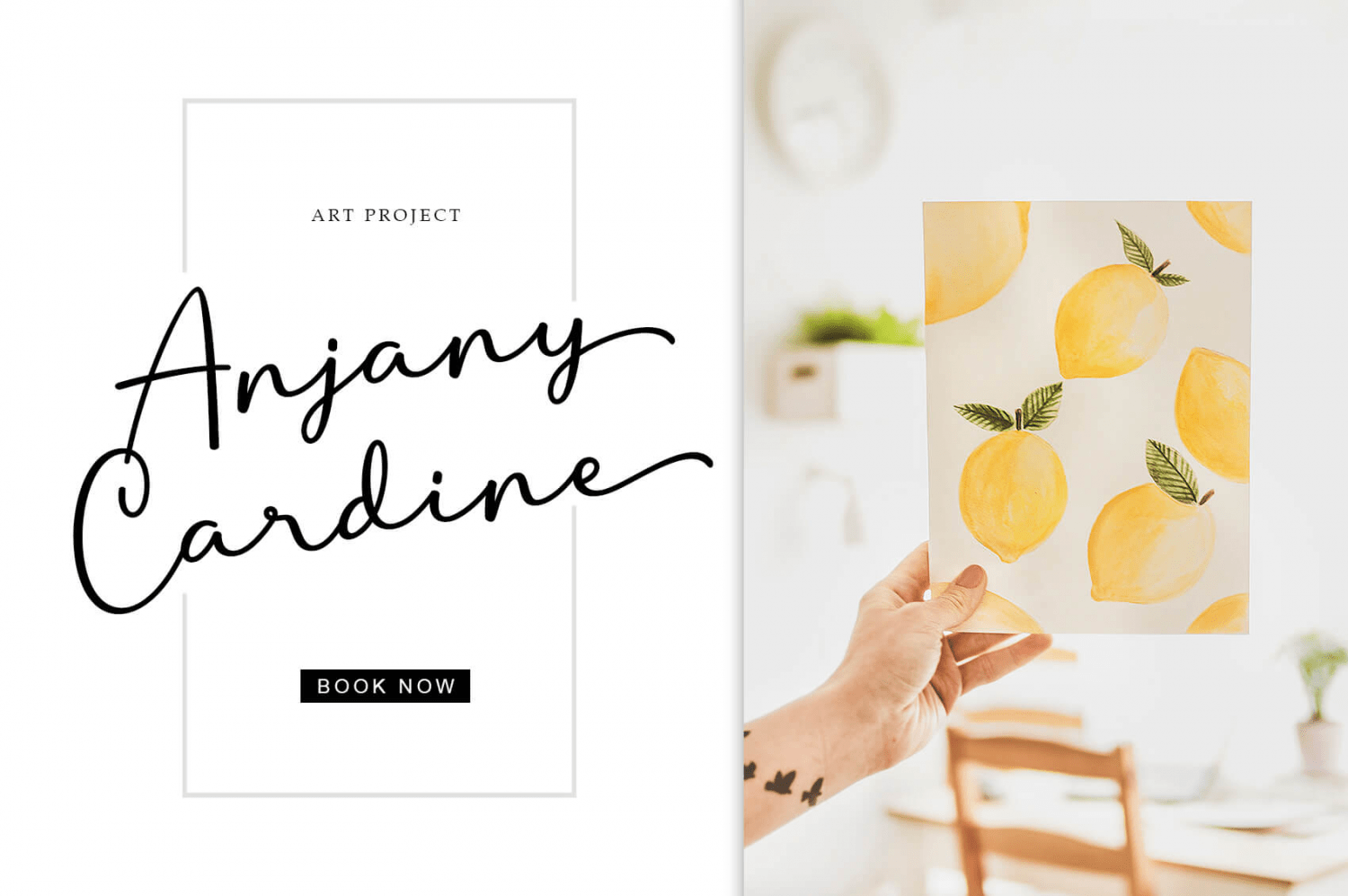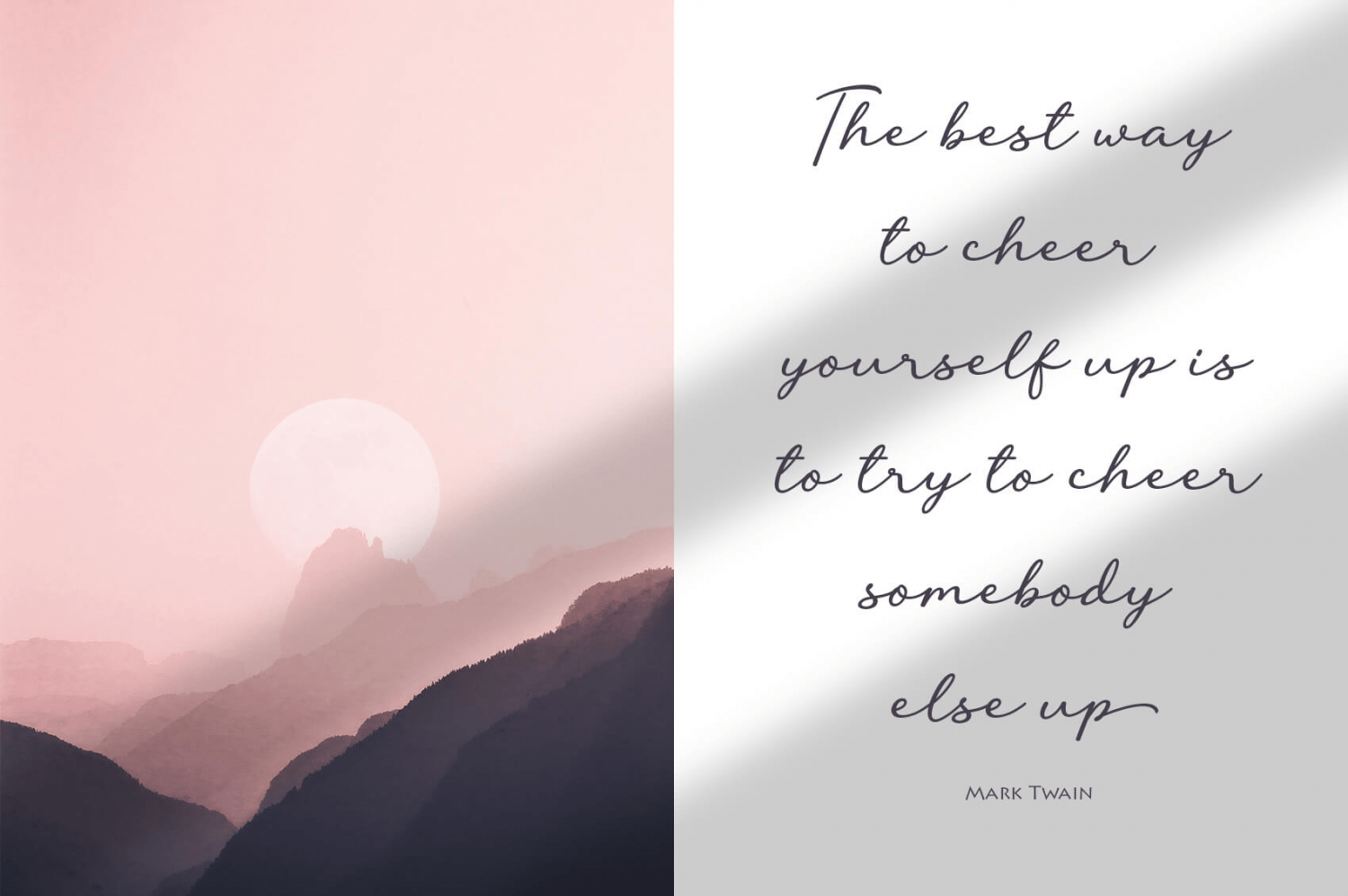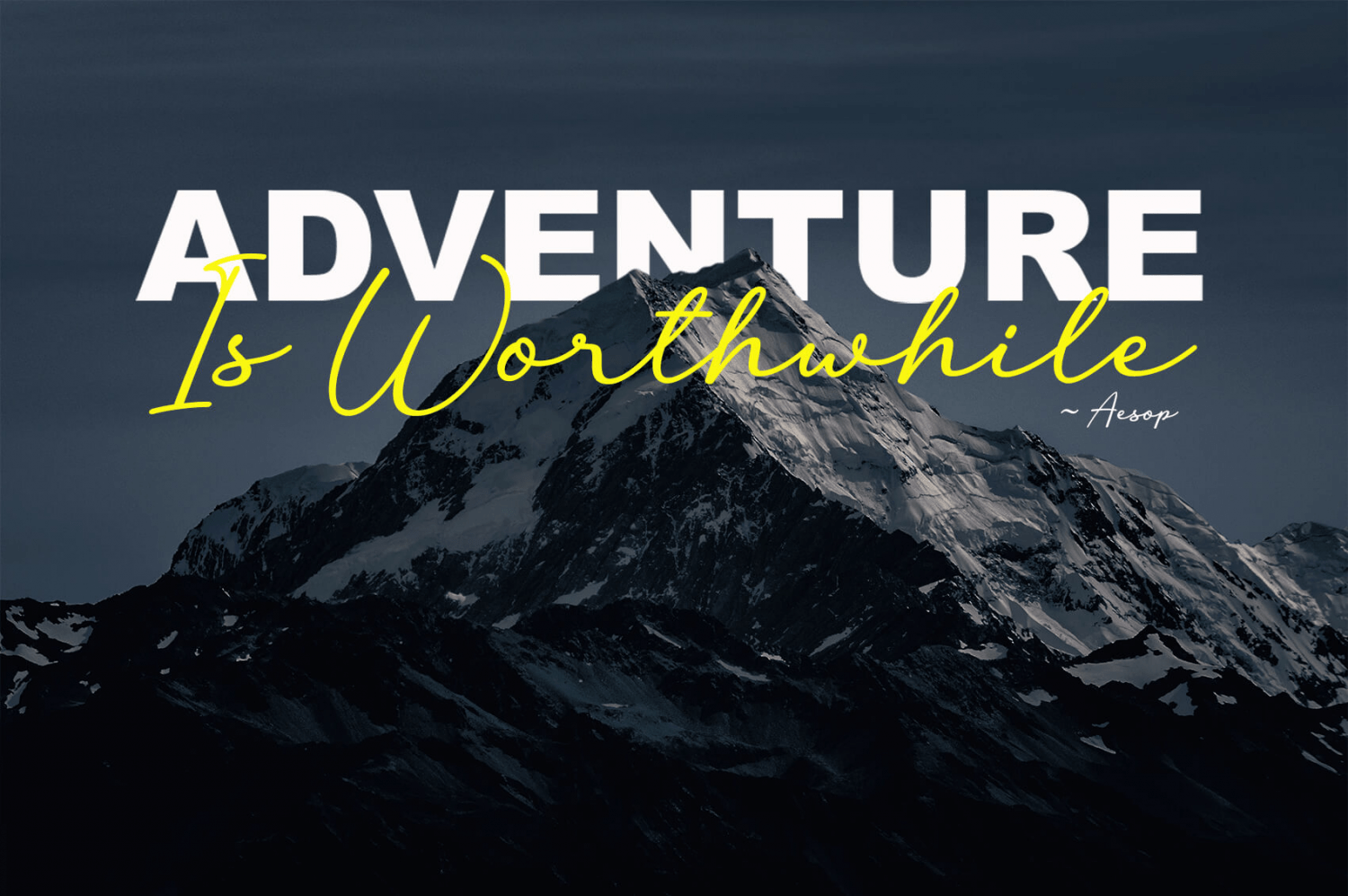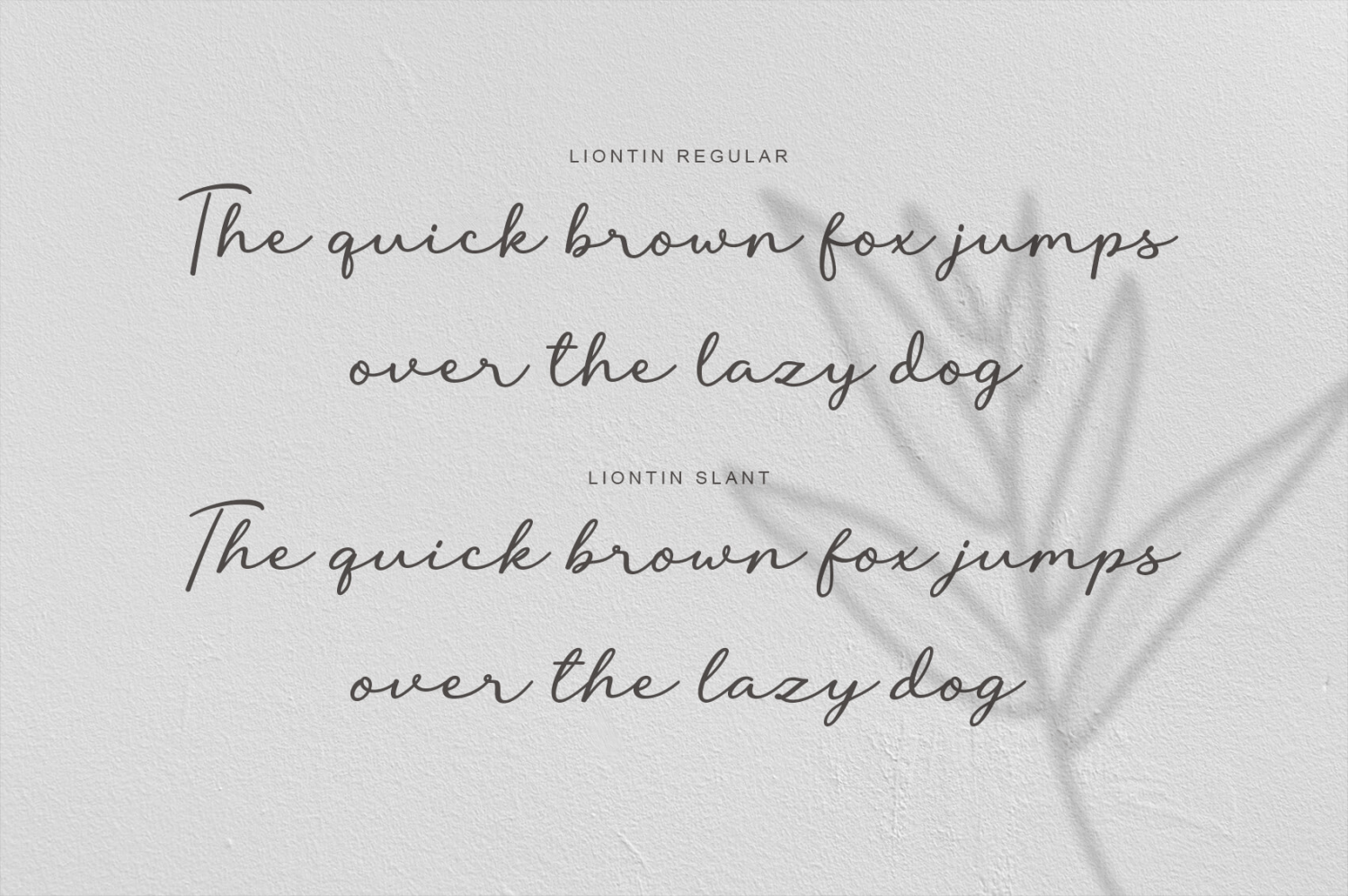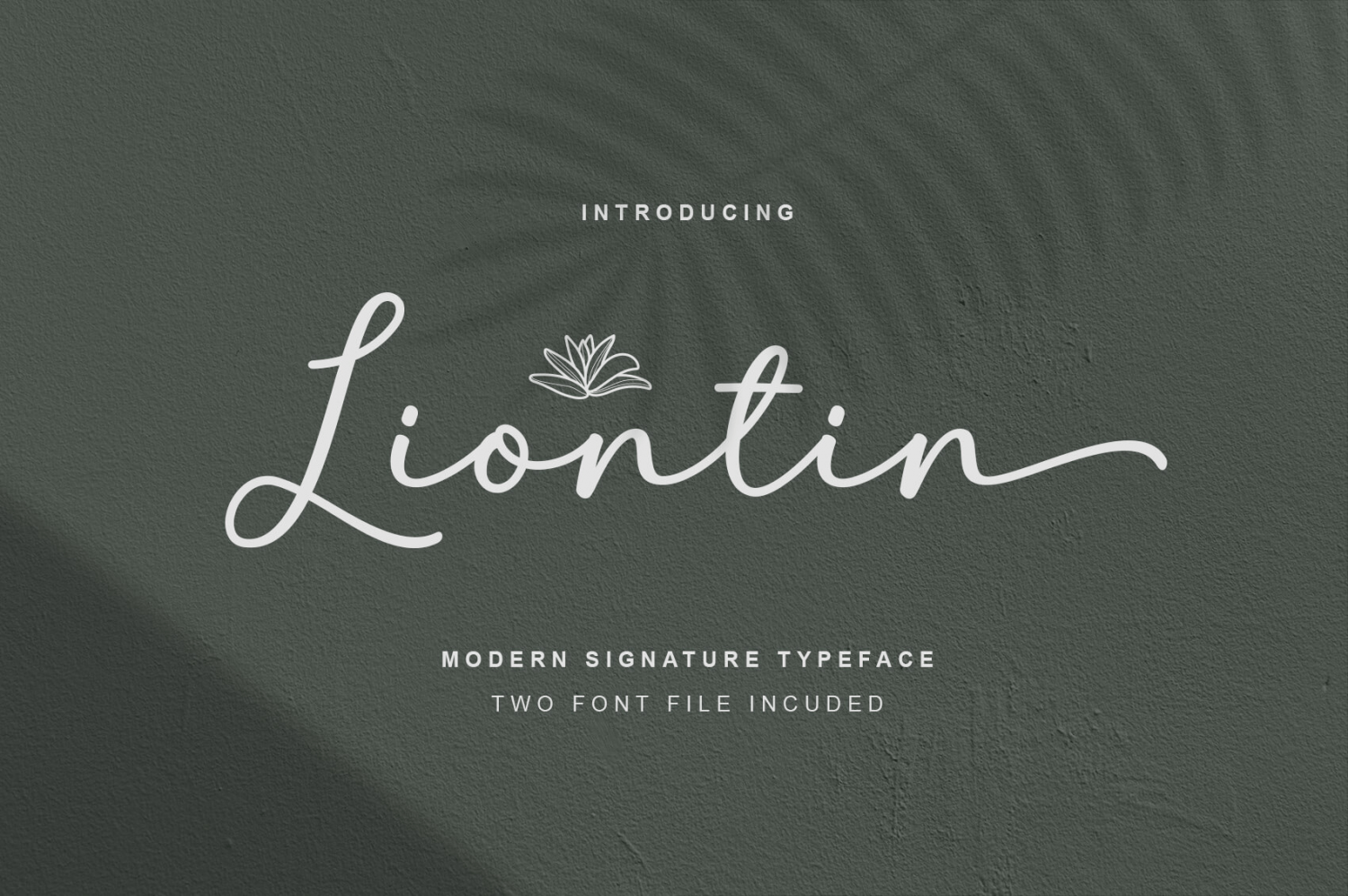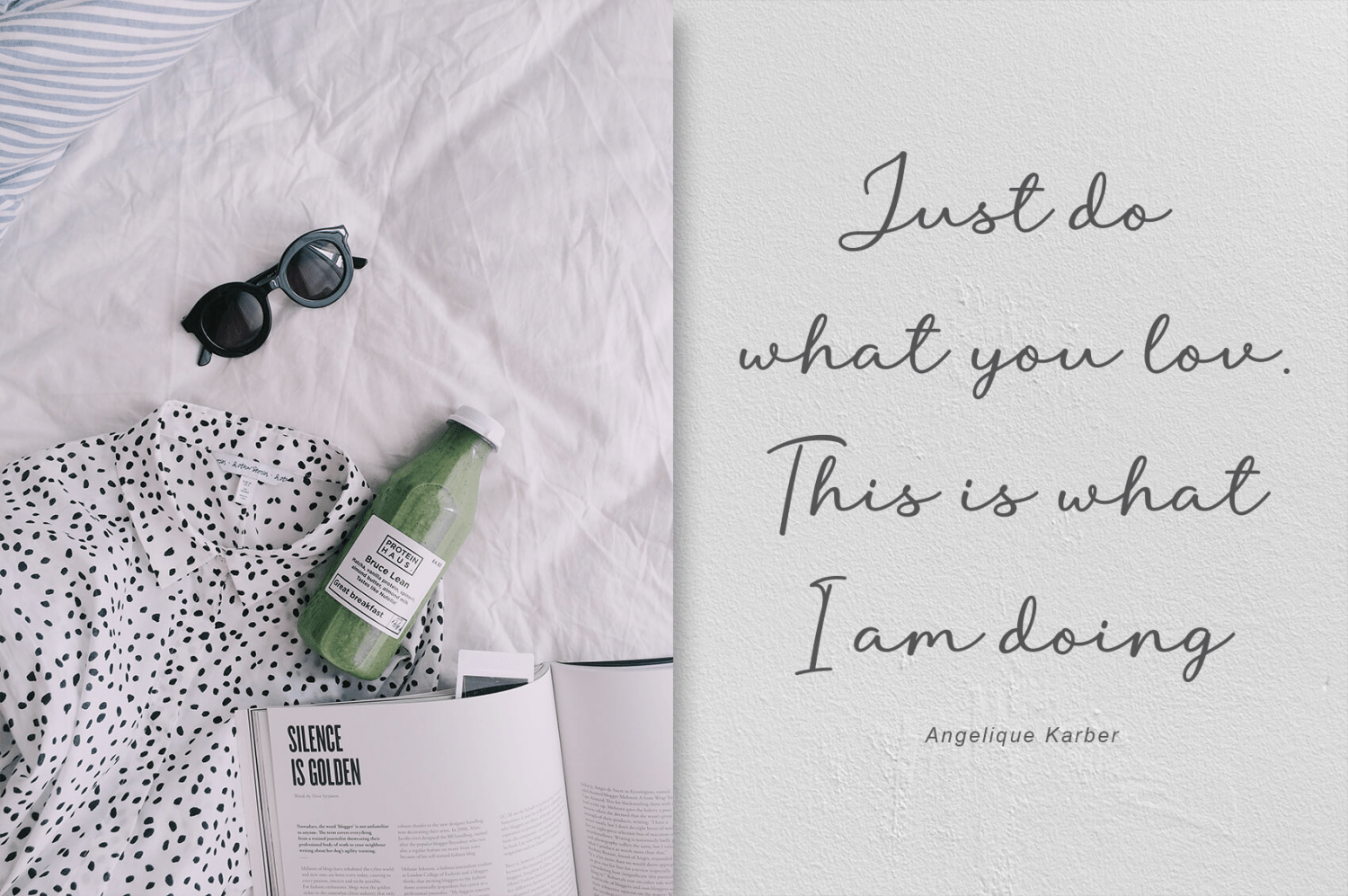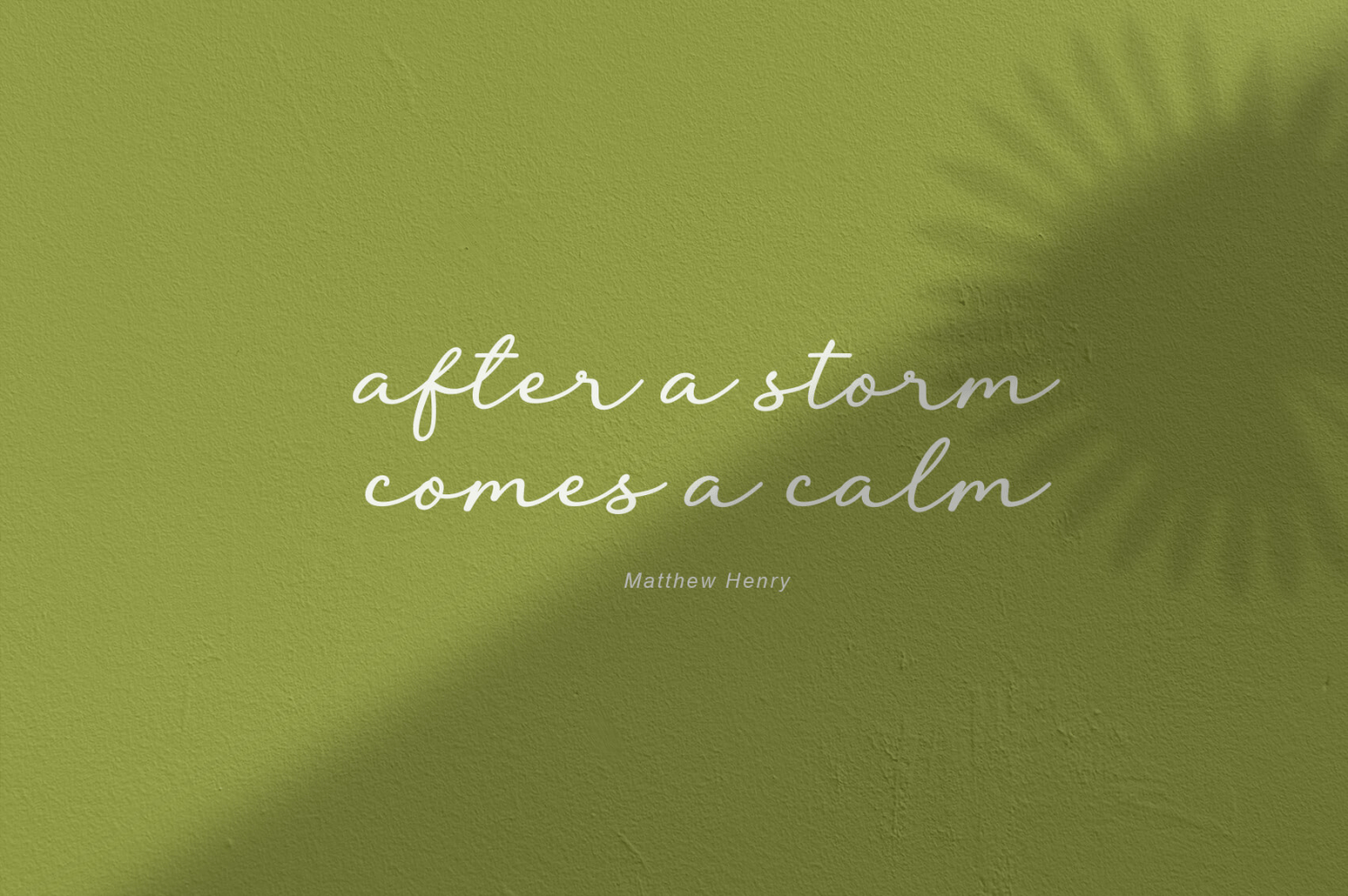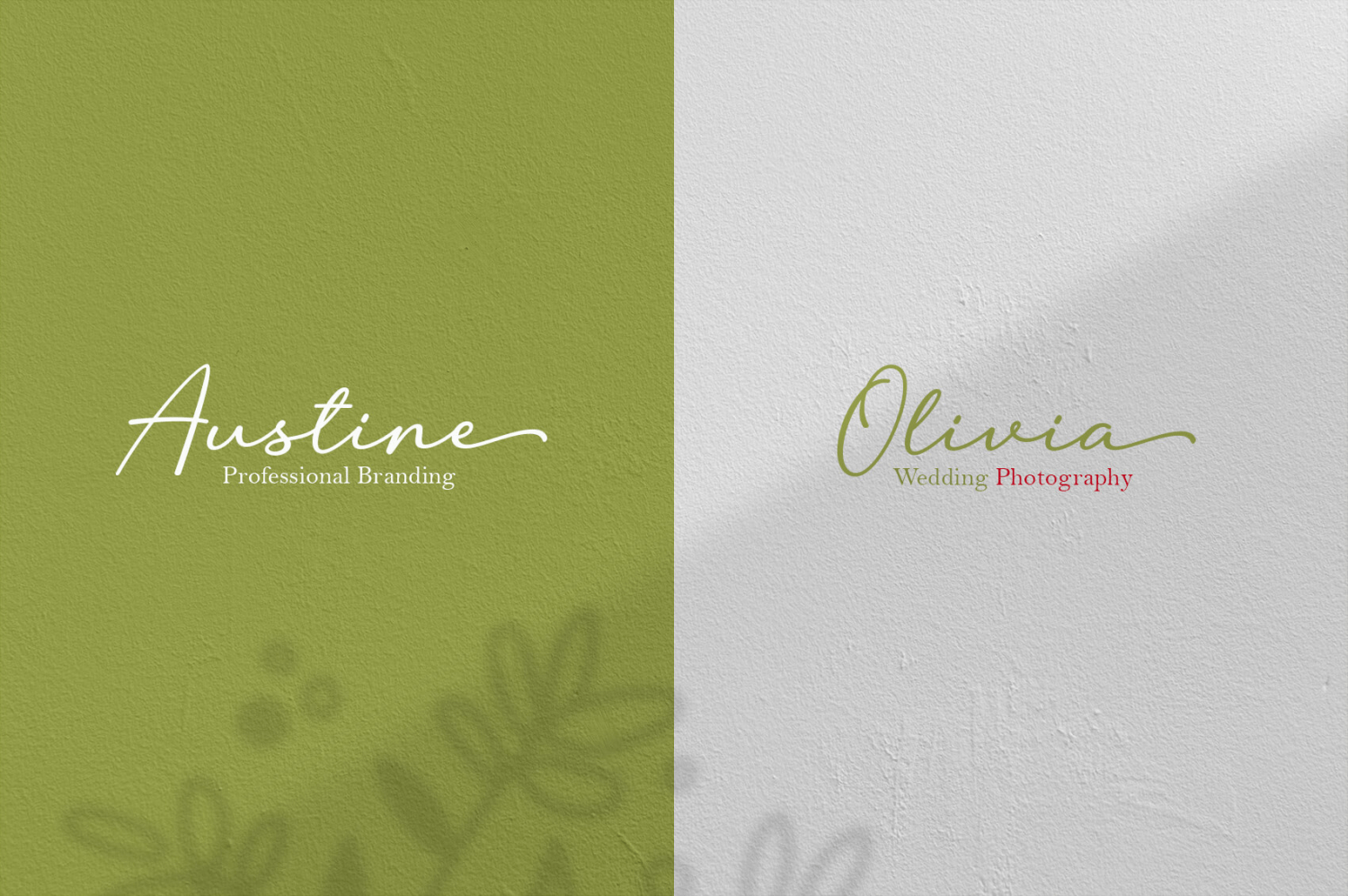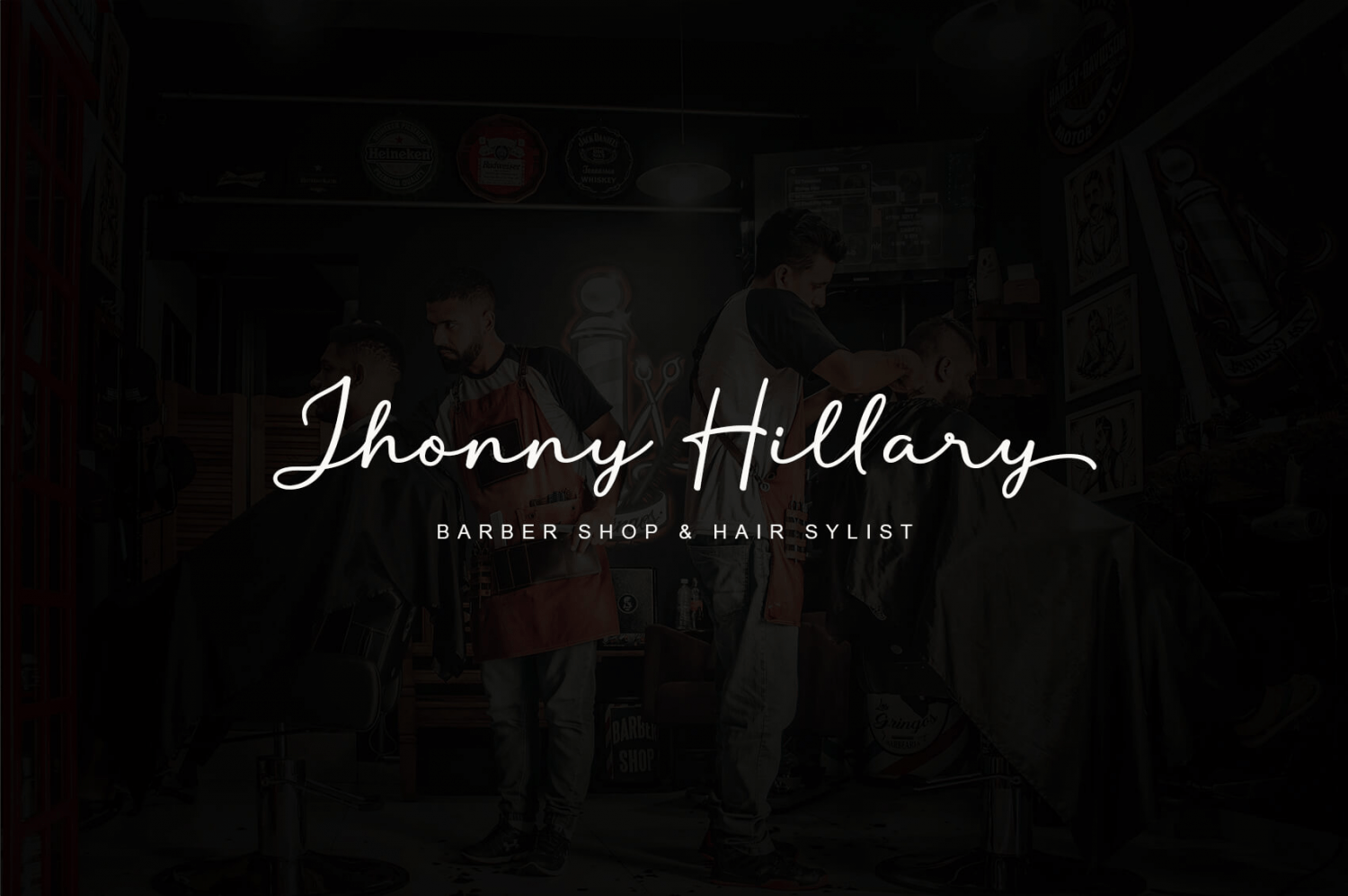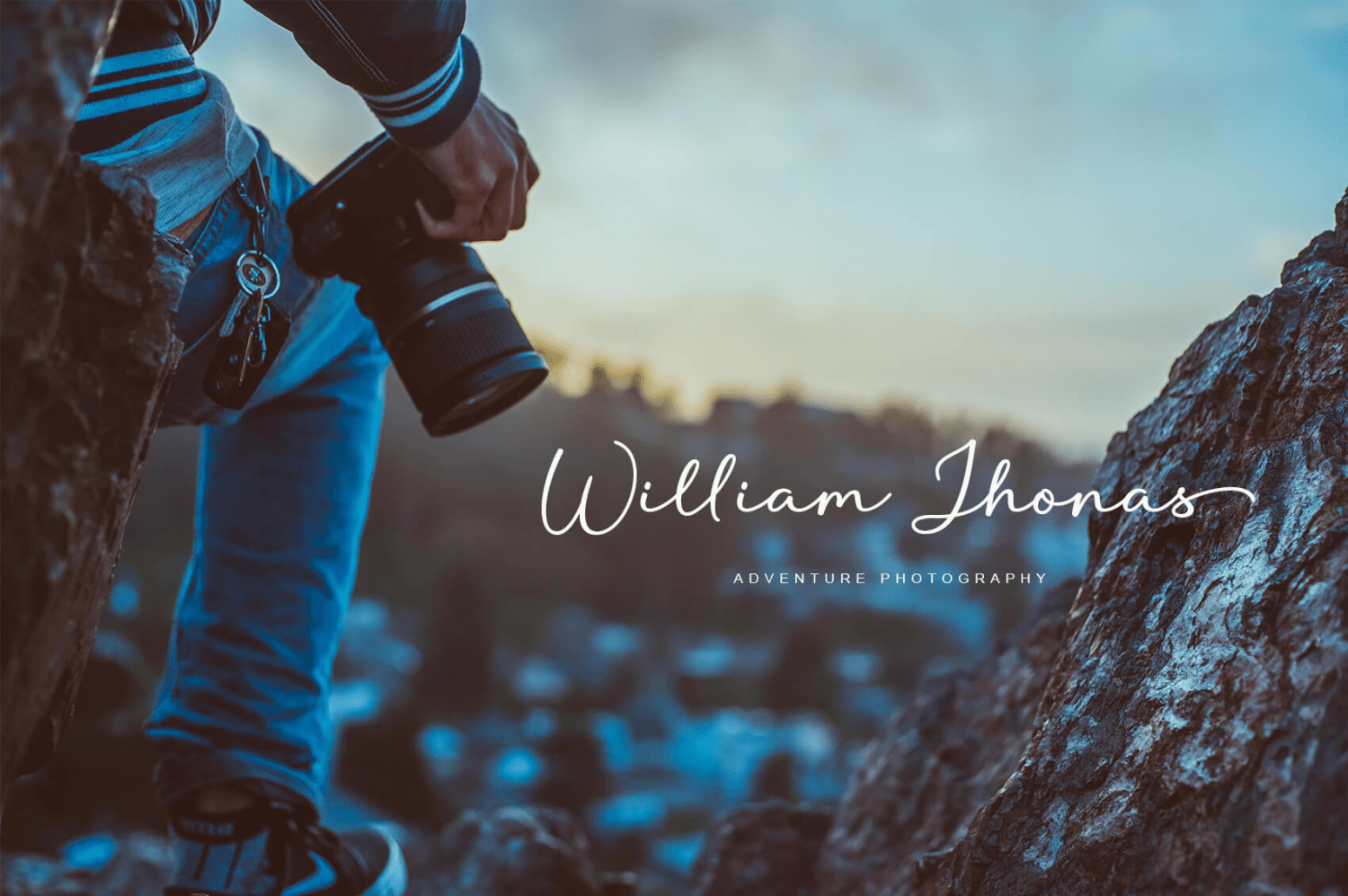
Liontin
Font Family by Fargun Studio
Liontin is modern script, perfect for photography, branding, signature. It is so beautiful and classy for your projects. This Font has given PUA code (specially coded fonts) so that all the alternate characters can easily be accessed by a craftsman or designer.